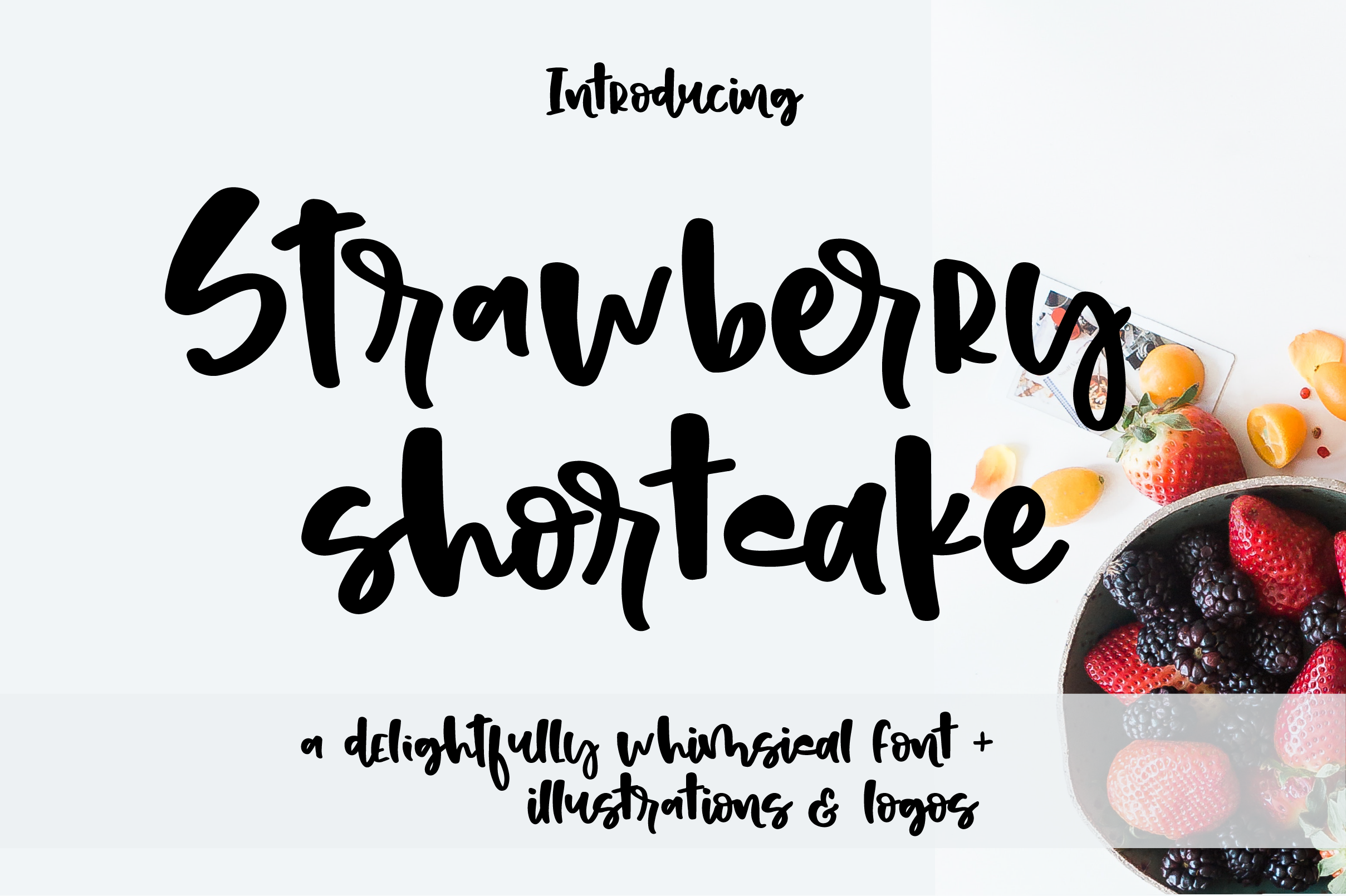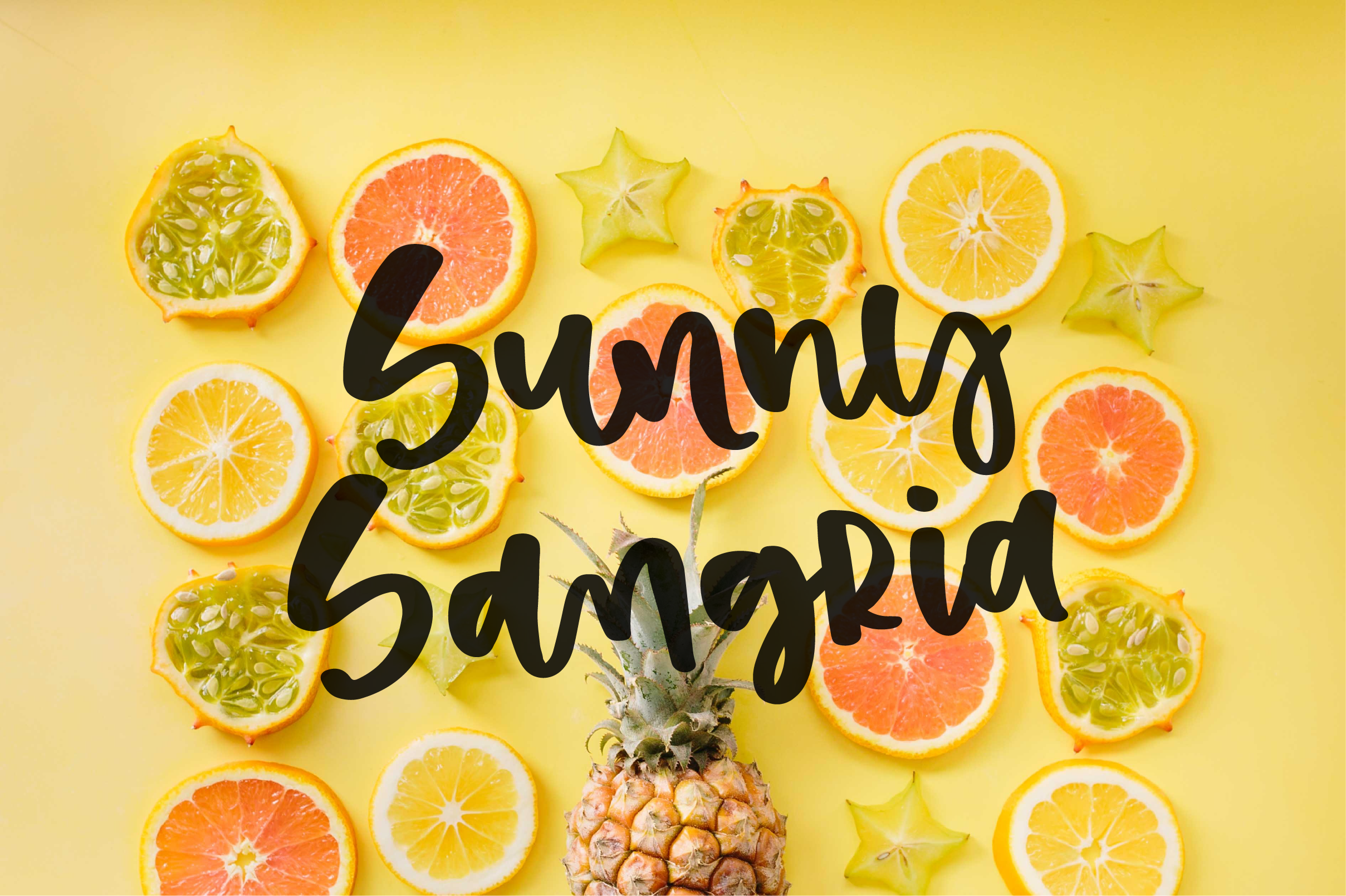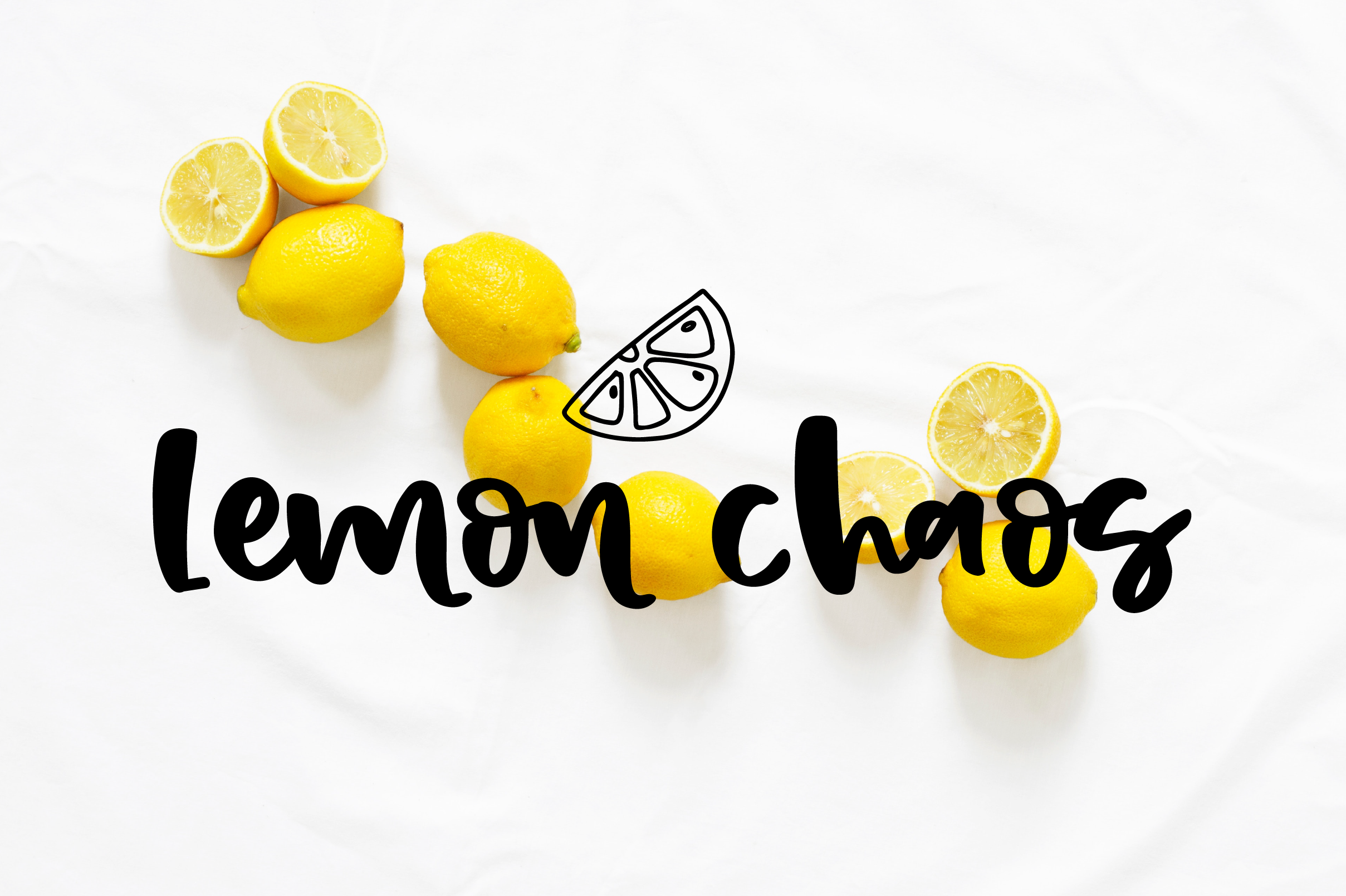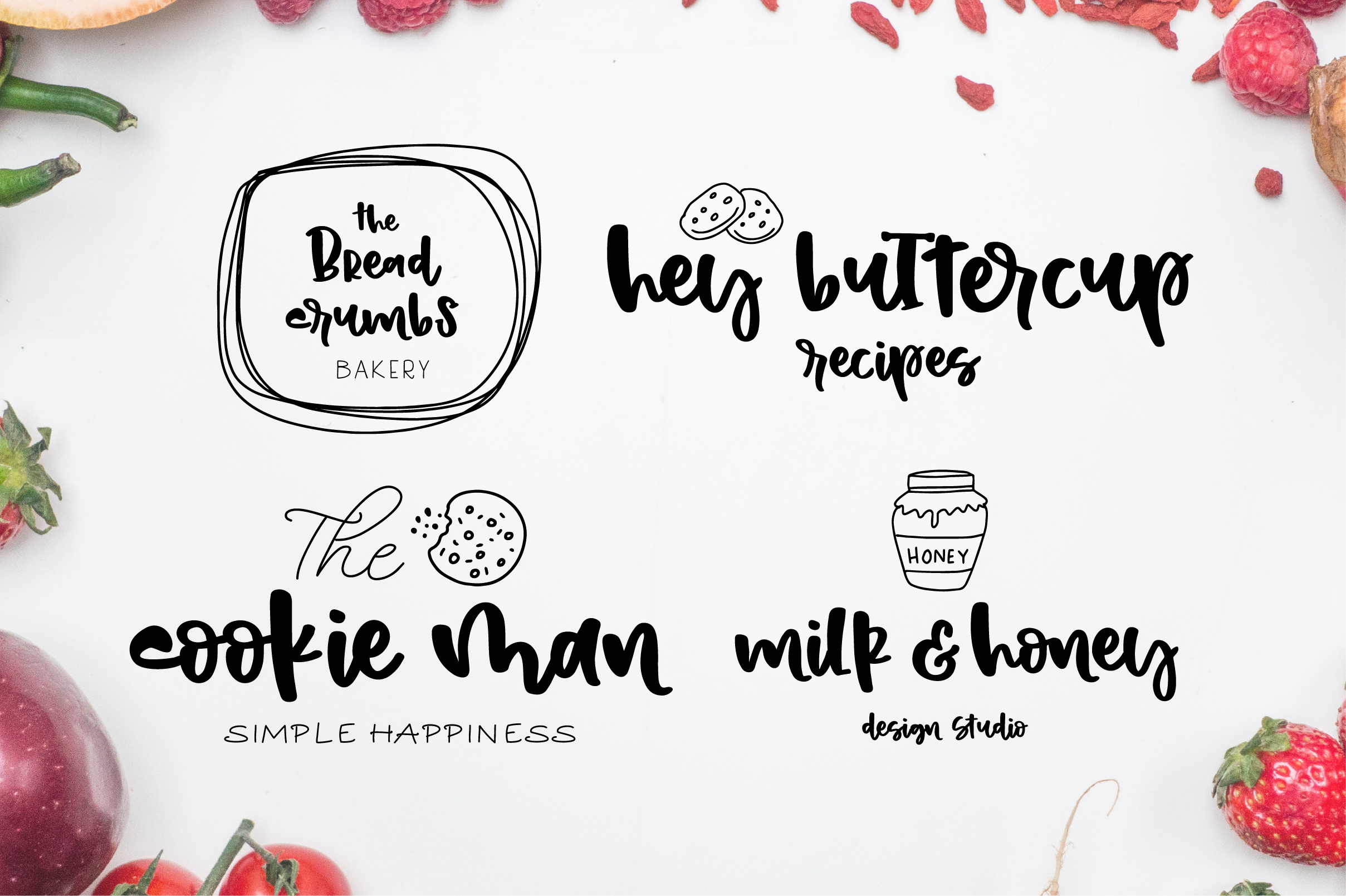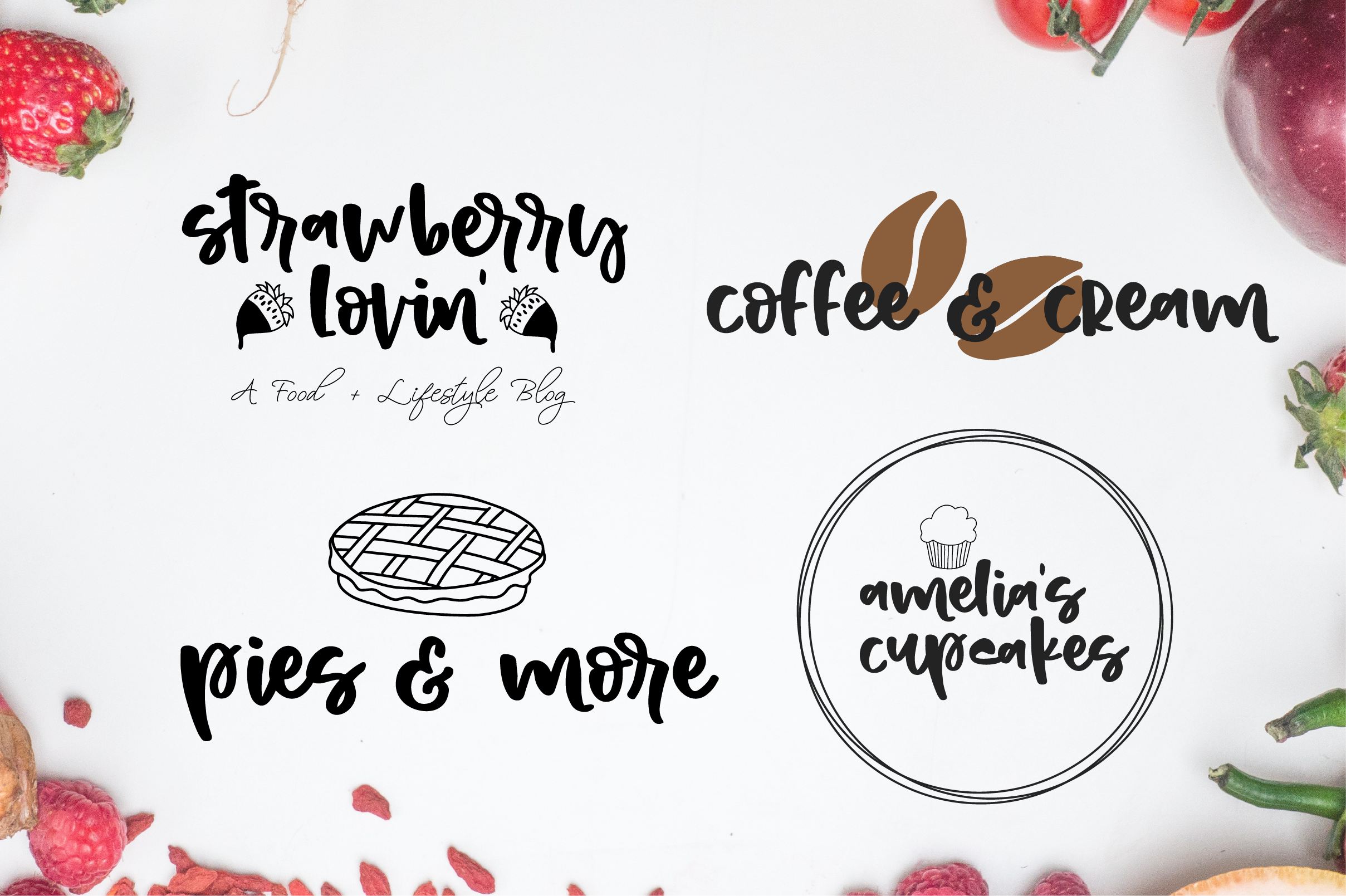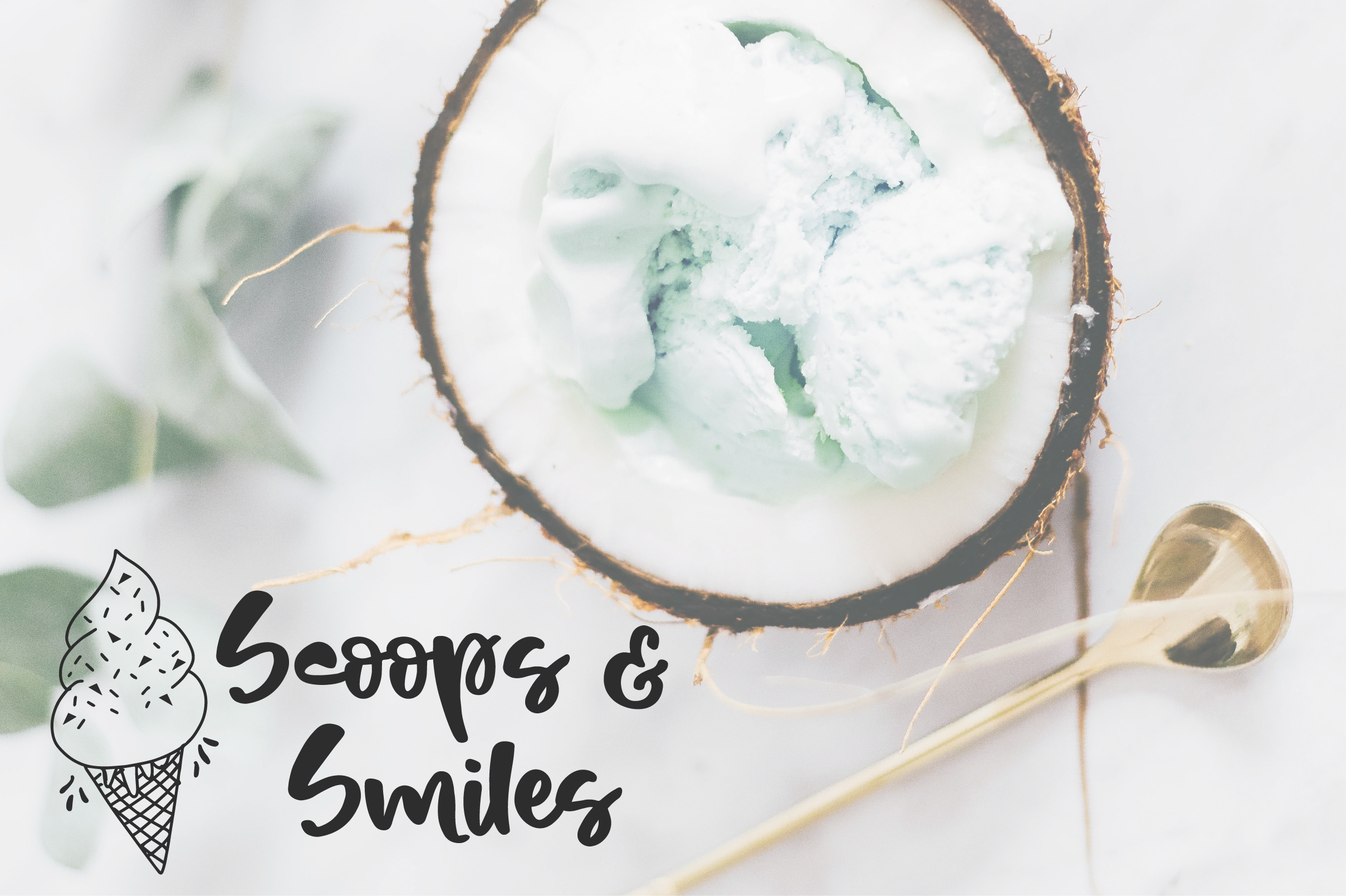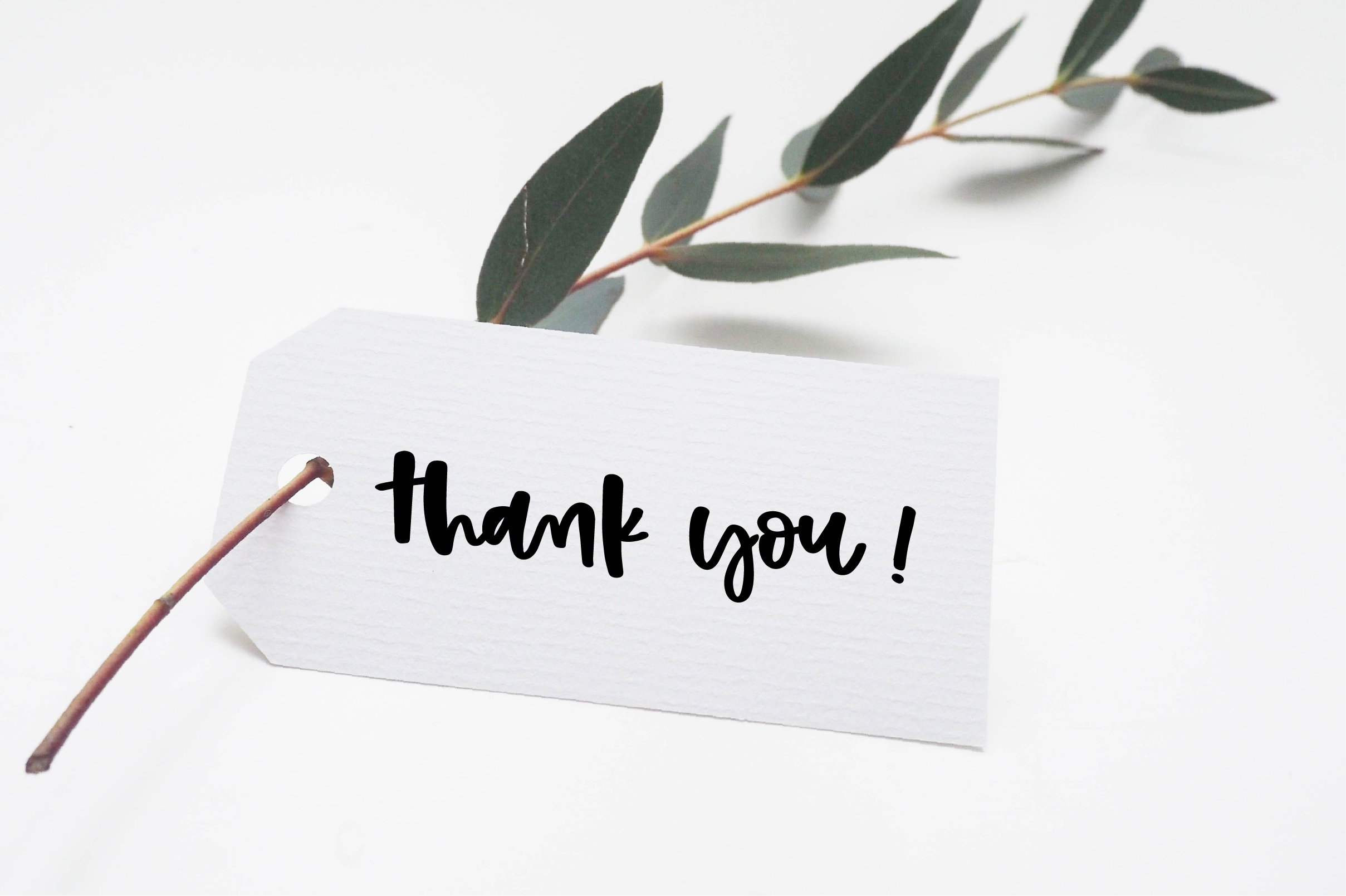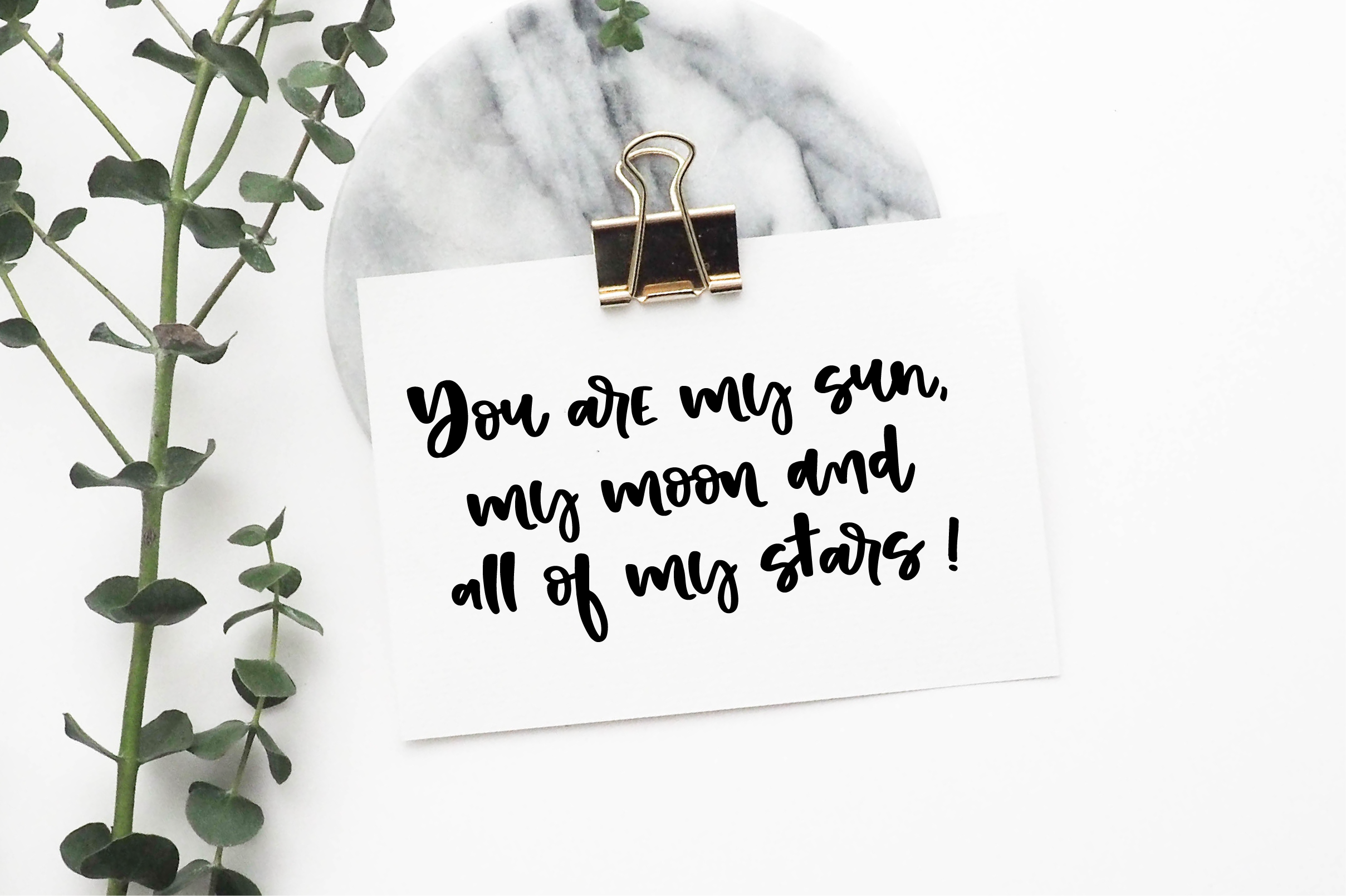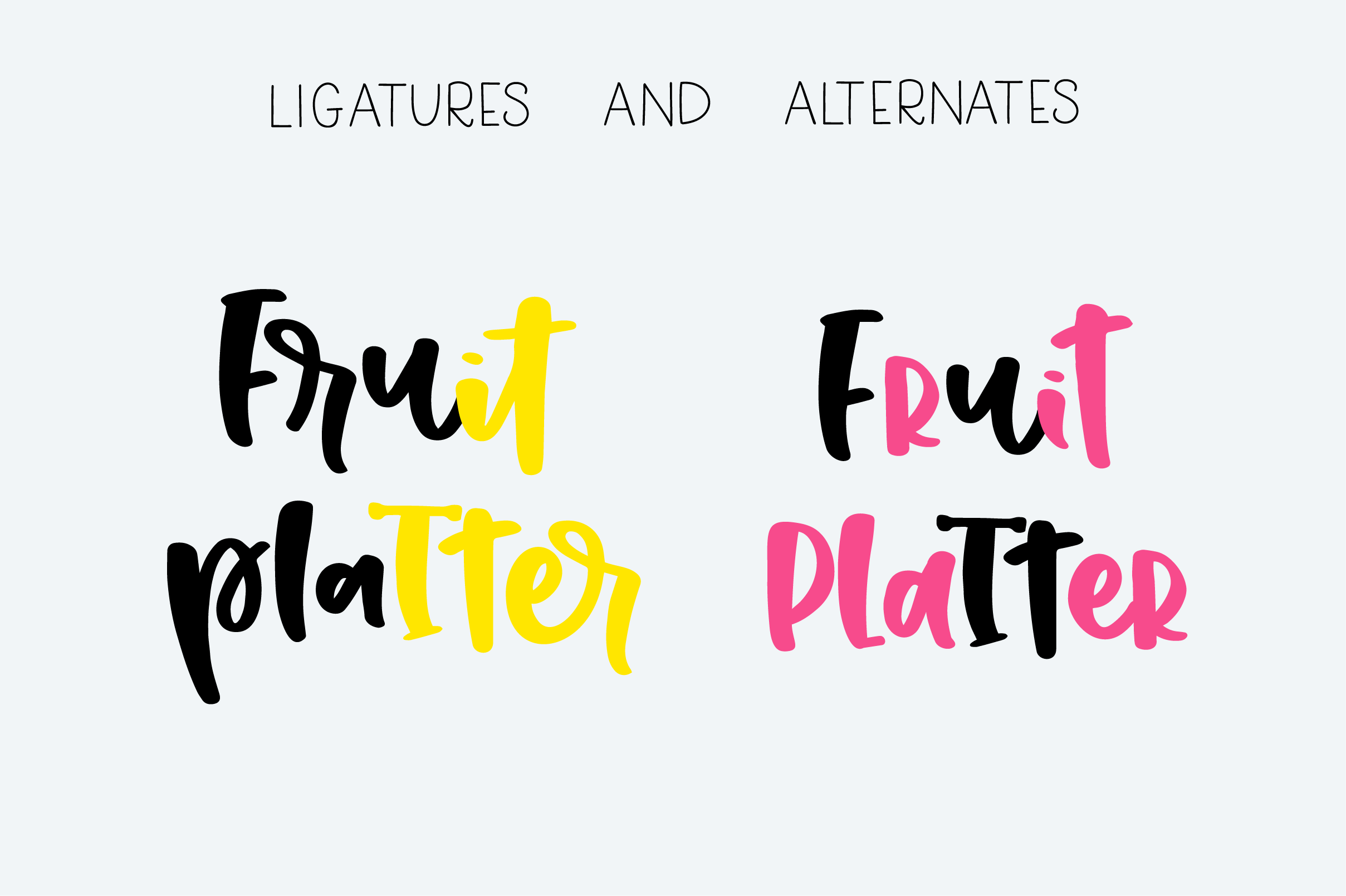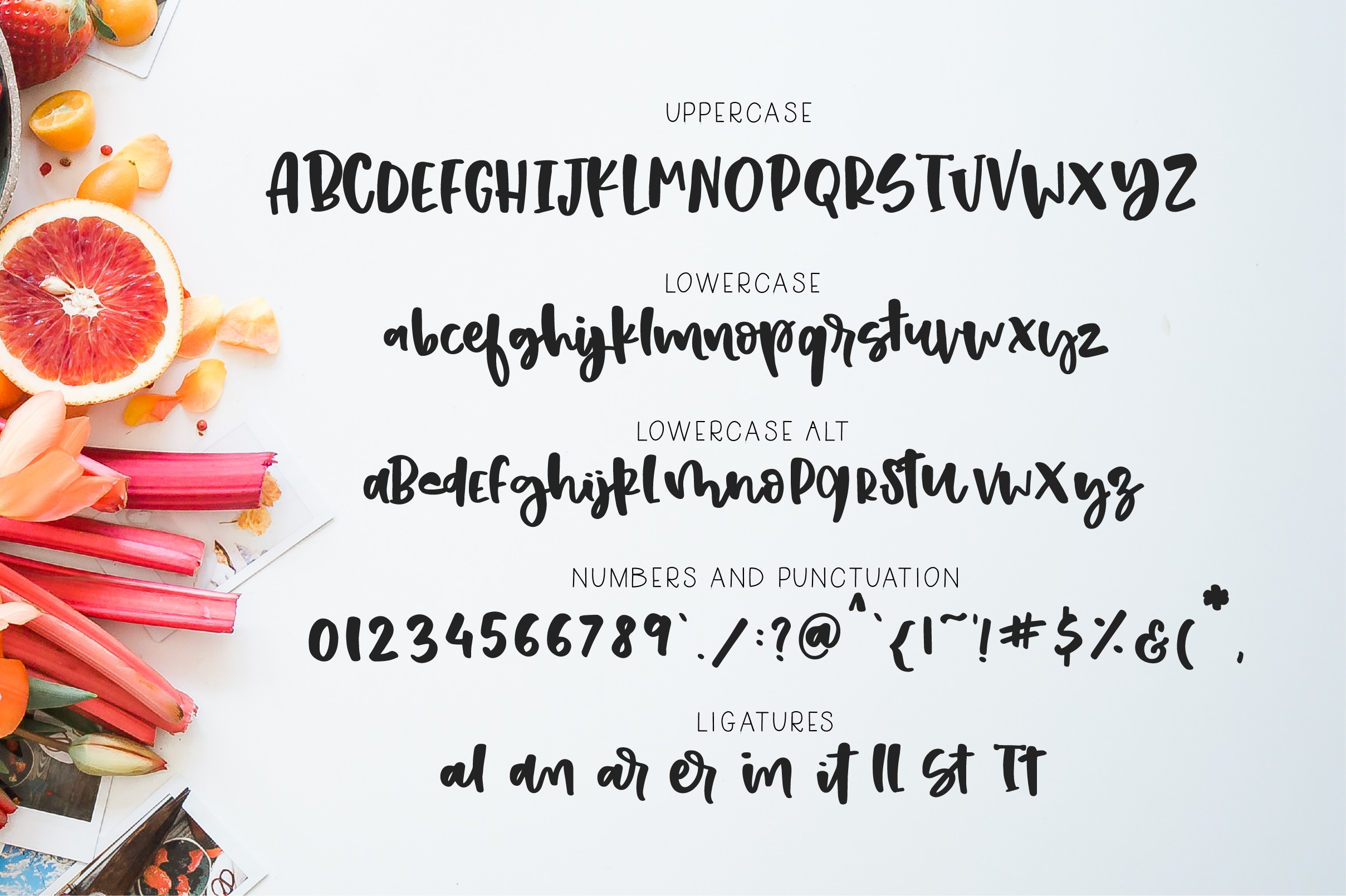
Strawberry Shortcake Font
About Strawberry Shortcake Font
Strawberry Shortcake is a gorgeous and playful script font, handwritten with care and love. This set includes perfectly complementary illustrations to add depth and character to your designs and type based projects.